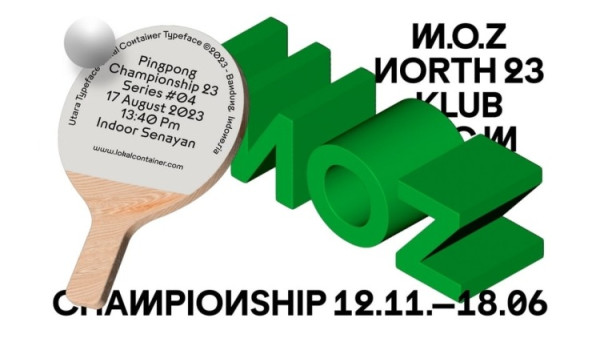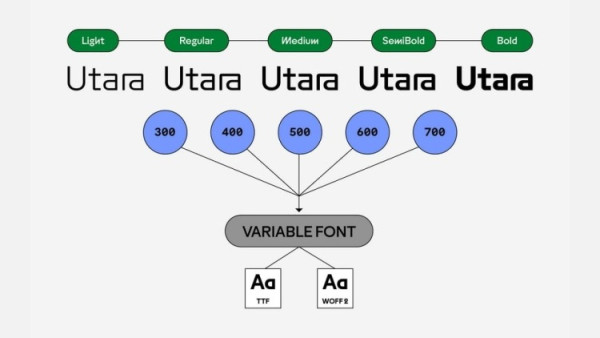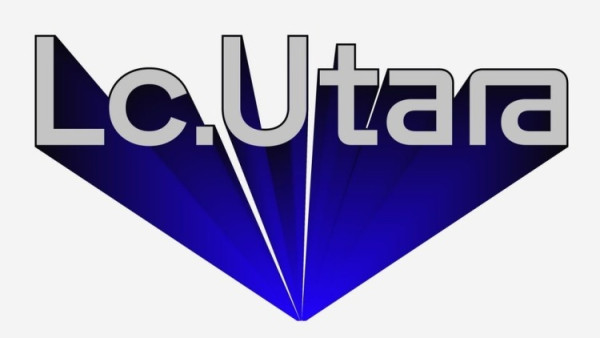
LC Utara Font
LC Utara Font is a contemporary sans serif typeface with a geometric touch and strong personality. The unique design brings energy and makes it suitable for eye-catching typography.
LC Utara font is perfectly suited for well-suited for high-impact graphic design and any display use. It could easily work for web, signage, posters as well as editorial design.